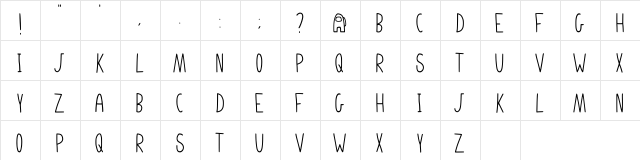
Impostograph Regular
Design Context for Impostograph Typeface
Impostograph offers clean, dependable letterforms without strong stylistic allegiance, making it a practical choice for designers who need flexibility.
Pro Tip: Use Impostograph in both headline and body roles to test its range before committing to a single application.